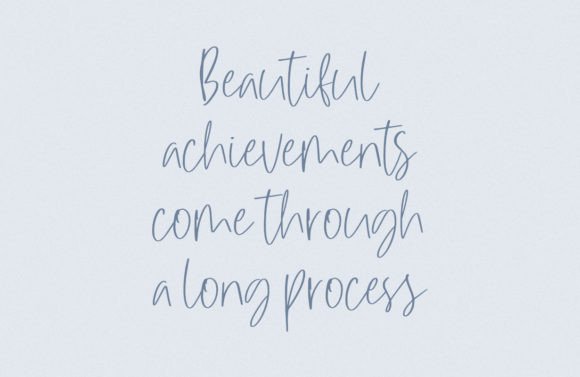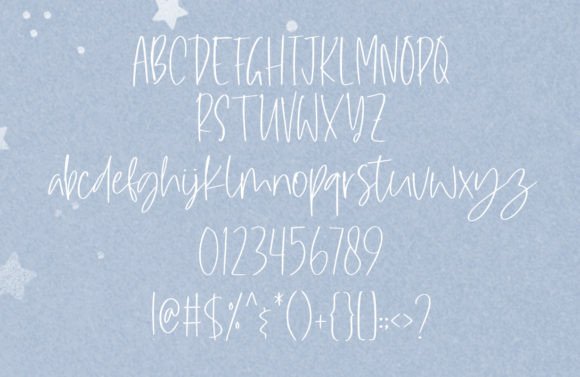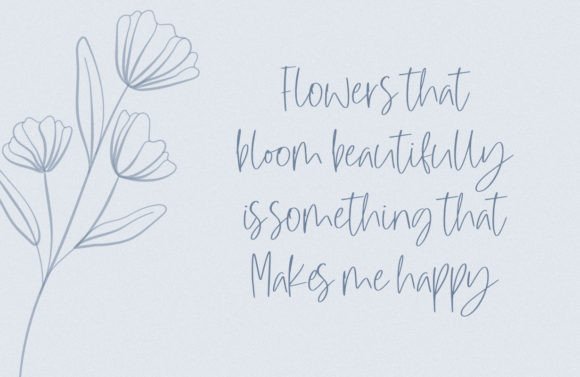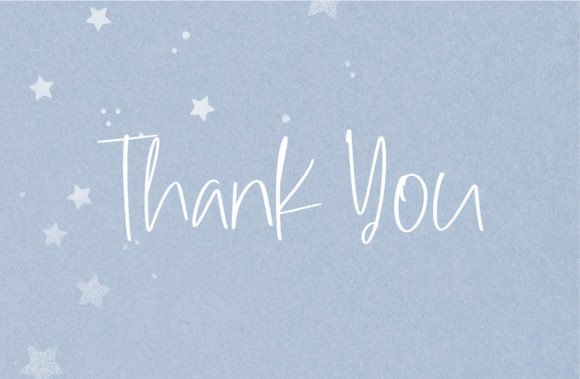
Casterika Font: The Perfect Handwritten Font for Your Creative Designs
Are you a designer or crafter looking for a unique and adorable font to elevate your creative projects? Look no further than Casterika Font! This charming handwritten font is perfect for a wide range of designs, from business cards and invitations to birthday greetings and social media graphics.
What is Casterika Font?
Casterika Font is a beautiful, hand-crafted font that exudes a sense of playfulness and friendliness. Its cute and whimsical design makes it an ideal choice for designers and crafters who want to add a personal touch to their work. Whether you’re creating a business card, invitation, or social media post, Casterika Font is sure to make your design stand out.
Key Features of Casterika Font
- Cute and Handwritten Design: Casterika Font features a unique, handwritten design that is both adorable and eye-catching.
- Versatile: This font is suitable for a wide range of designs, including business cards, invitations, birthday greetings, social media graphics, and more.
- Easy to Read: Despite its playful design, Casterika Font is easy to read and understand, making it perfect for both digital and print designs.
- High-Quality: Casterika Font is a high-quality font that is designed to deliver exceptional results in any design project.
Uses of Casterika Font
Casterika Font is a versatile font that can be used in a variety of design projects. Here are some ideas to get you started:
- Business Cards: Add a personal touch to your business cards with Casterika Font. Its cute and professional design makes it perfect for entrepreneurs, freelancers, and small business owners.
- Invitations: Create beautiful and unique invitations for weddings, birthday parties, and other special occasions with Casterika Font.
- Birthday Greetings: Make your birthday greetings stand out with Casterika Font. Its playful design is sure to bring a smile to the recipient’s face.
- Social Media Graphics: Use Casterika Font to create eye-catching social media graphics that will help you connect with your audience.
Benefits of Using Casterika Font
Using Casterika Font in your design projects offers several benefits, including:
- Unique Design: Casterika Font features a unique and adorable design that will set your work apart from others.
- Time-Saving: With Casterika Font, you can create professional-looking designs in no time. Its easy-to-read design and versatile style make it perfect for quick design projects.
Tips for Using Casterika Font
Here are some tips for using Casterika Font in your design projects:
- Pair it with Other Fonts: Experiment with pairing Casterika Font with other fonts to create a unique and visually appealing design.
- Use it in Combination with Images: Combine Casterika Font with images to create a stunning design that will capture the attention of your audience.
- Experiment with Colors: Try out different colors with Casterika Font to find the perfect combination that suits your design project.
Casterika Font is a beautiful and versatile handwritten font that is perfect for designers and crafters who want to add a personal touch to their work. Its cute and whimsical design makes it an ideal choice for a wide range of design projects, from business cards and invitations to birthday greetings and social media graphics. With its ease of use, high-quality design, and affordability, Casterika Font is a must-have font for any designer or crafter.